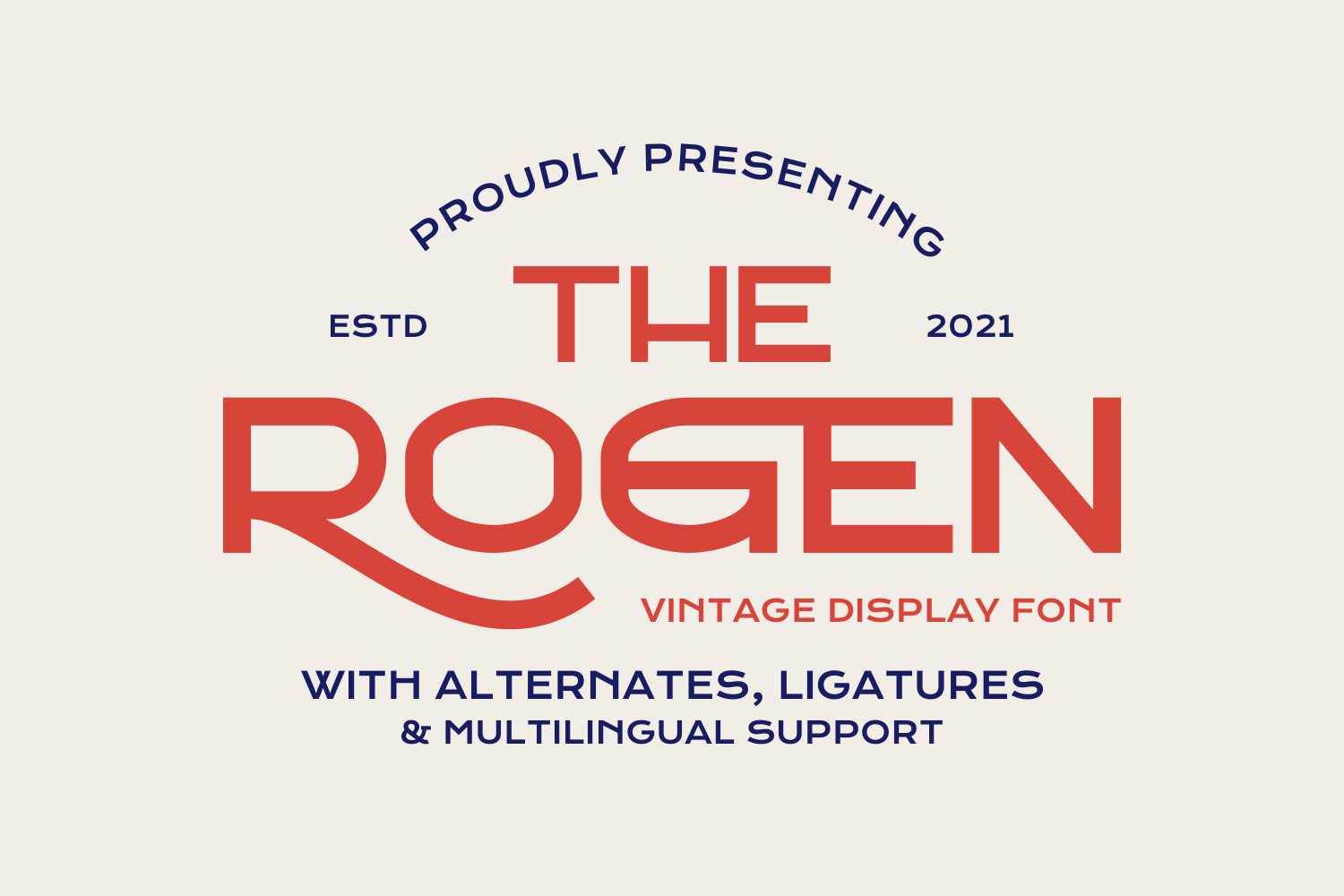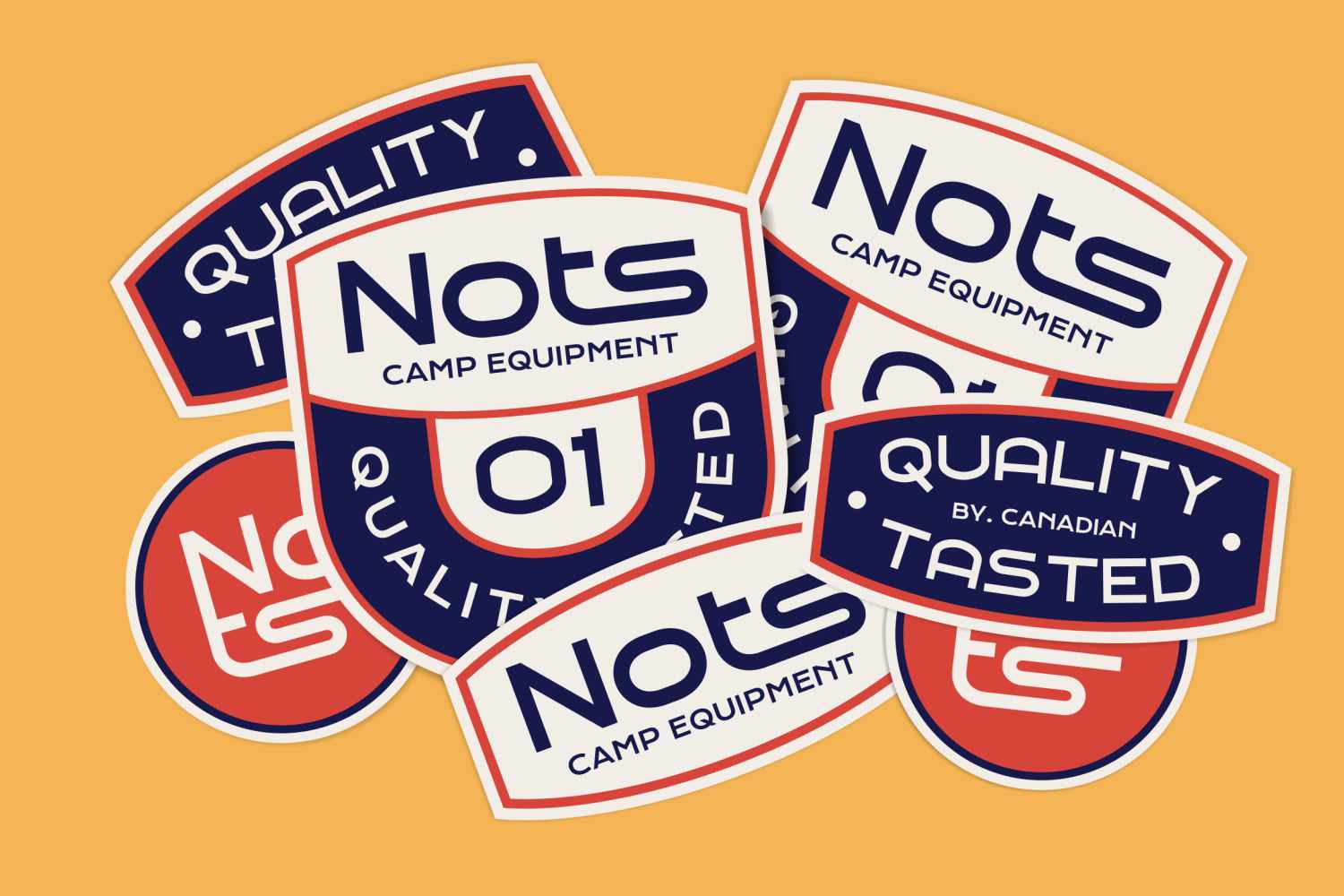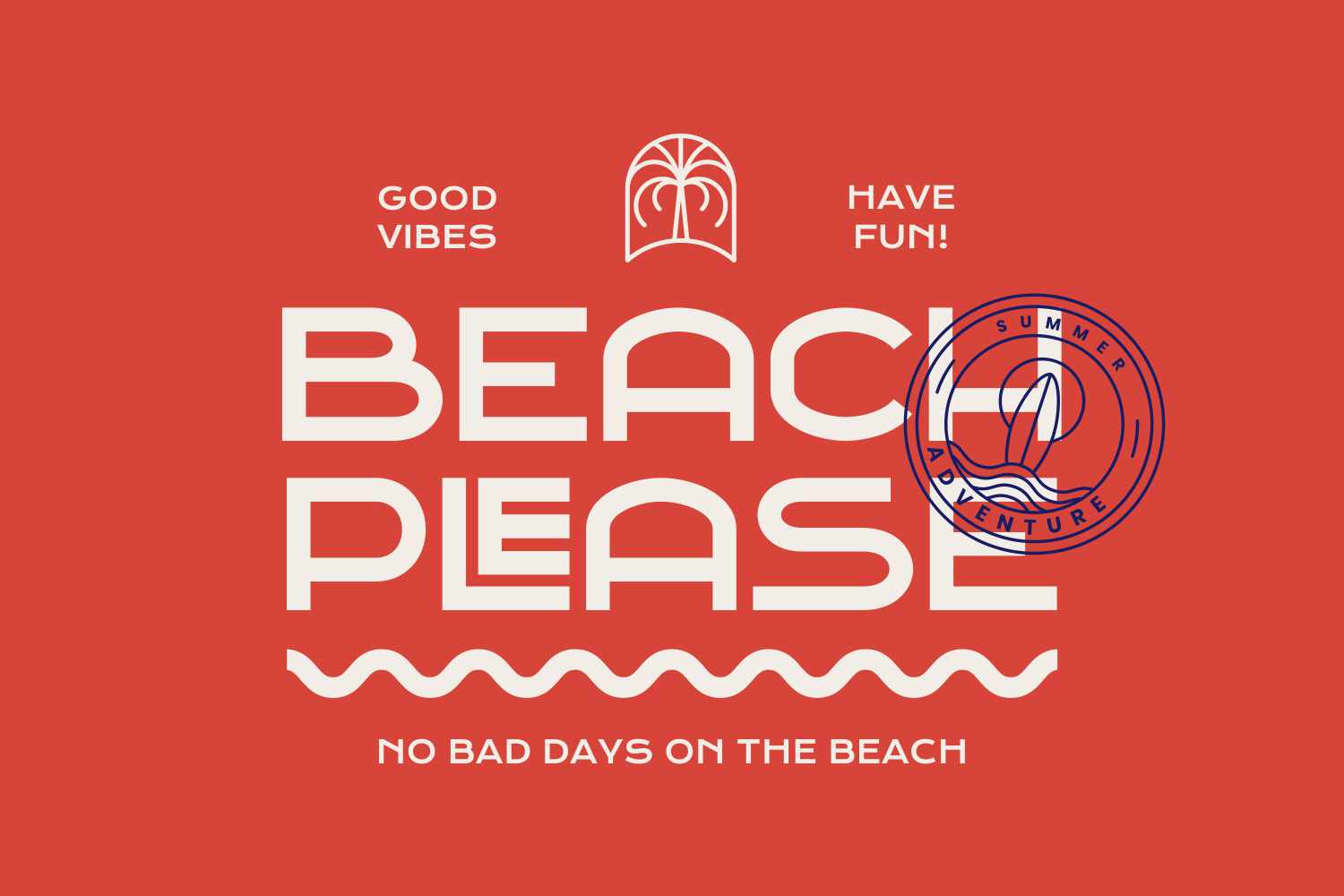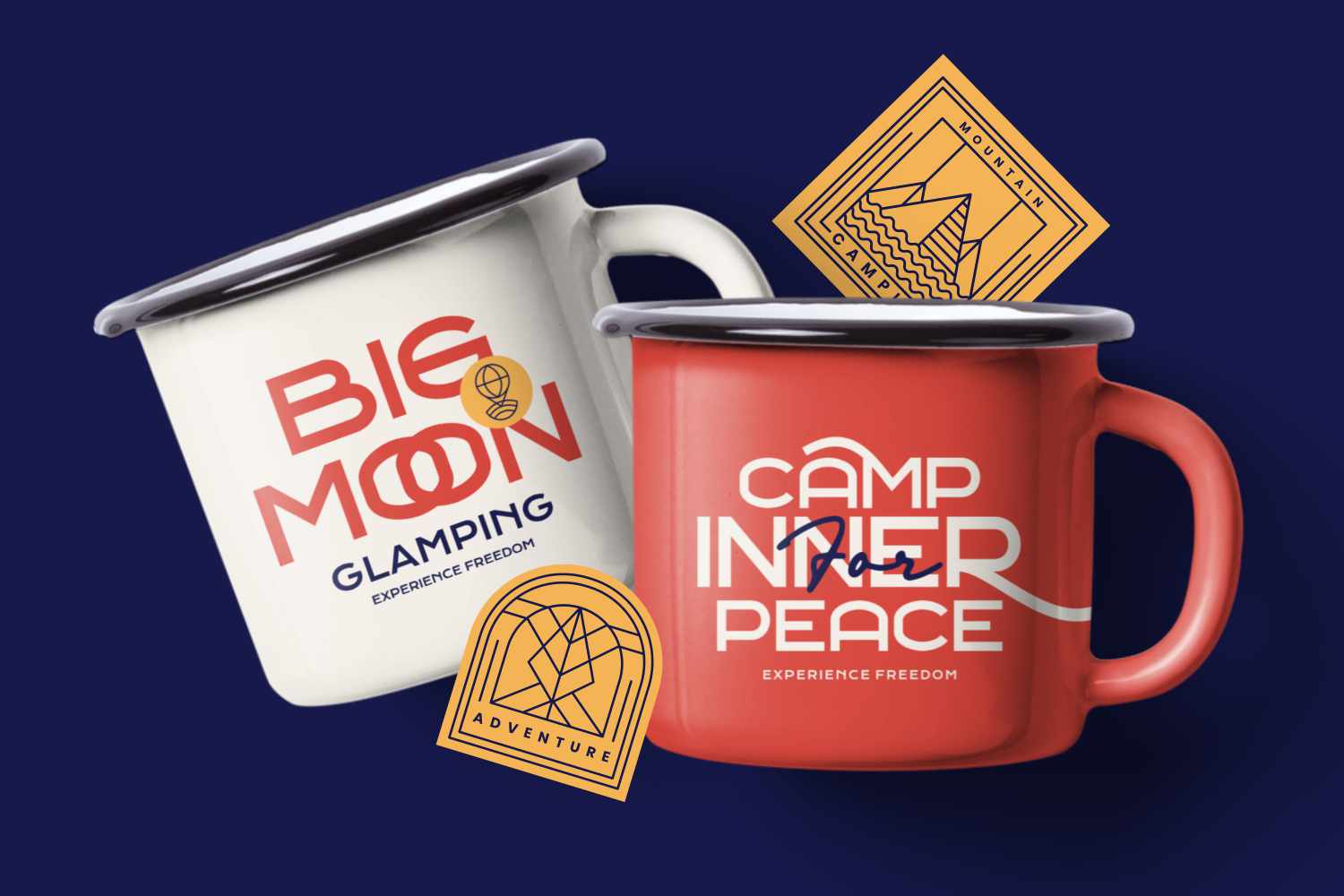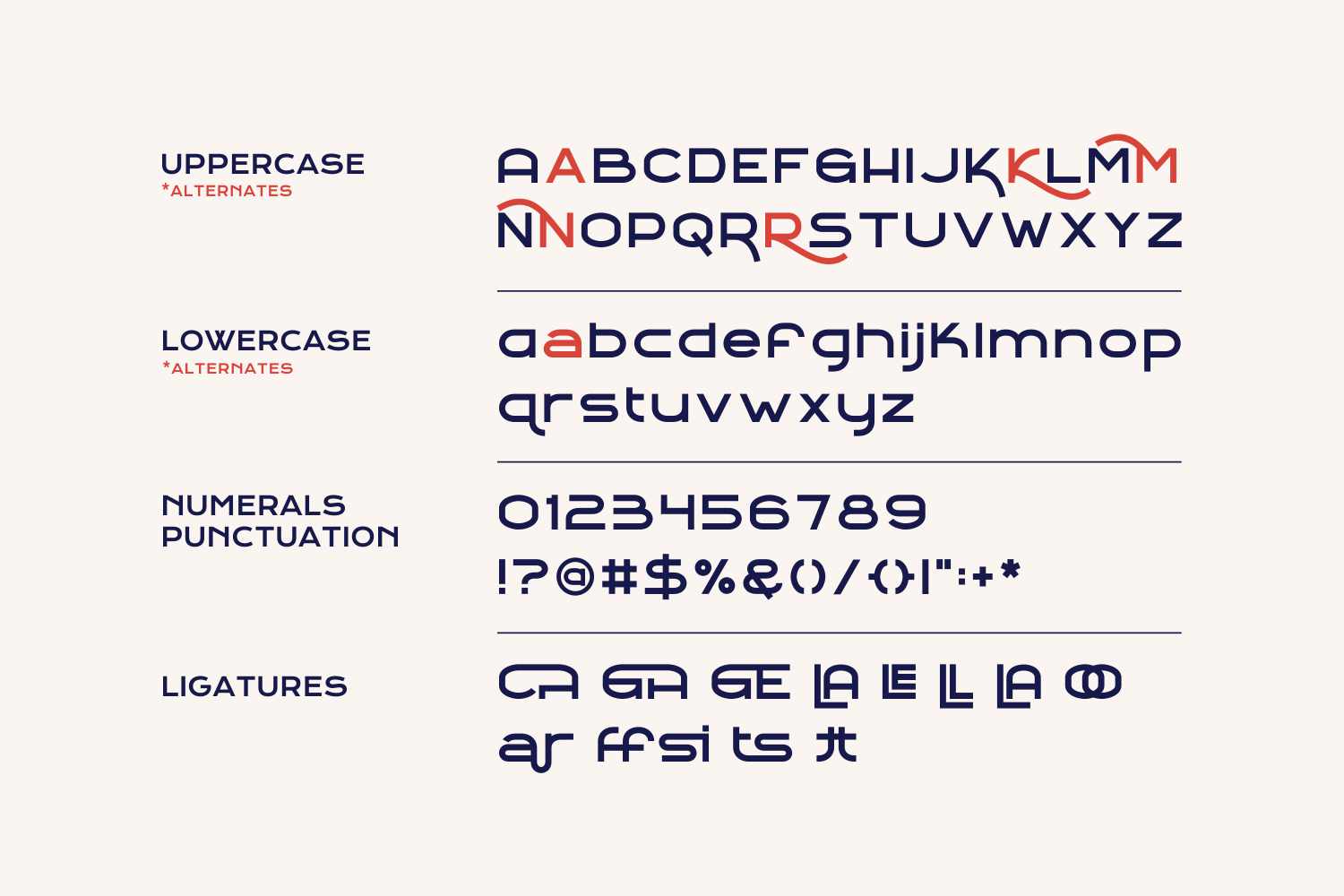
Rogen
Glyphs for Rogen
Rogen is a stylish vintage display font that blends clean lines with playful curves, offering a unique typographic voice for retro-themed design. With a modern twist on nostalgic aesthetics, Rogen includes alternates and ligatures that make your headlines, logos, and posters stand out while retaining a sense of warmth and personality.
Perfect for outdoor branding, travel campaigns, packaging, and retro logotypes, Rogen supports multilingual characters and features a complete set of uppercase, lowercase, numerals, punctuation, and custom ligatures. Its bold geometric form combined with curved strokes gives it a distinctive look that’s both versatile and eye-catching.